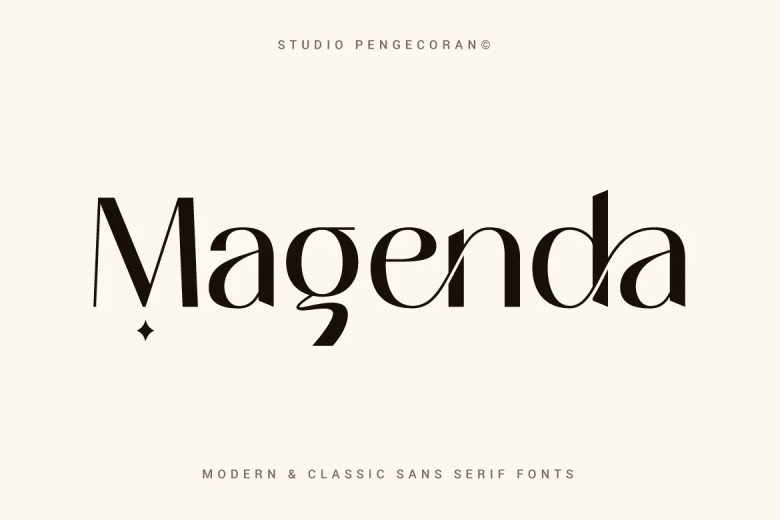
Magenda Font
Magenda Font designed by Studio Pengecoran is a very elegant modern sans serif font that is designed for each letter smoothly and has many ligatures and letter alternatives that are easy to use to make variations on each letter. Perfect for design projects such as branding, logos, creative posts, covers and more.
Magenda Sans Serif Font